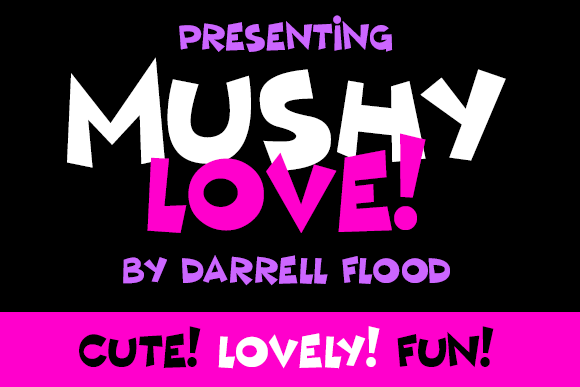
**Step into a Realm of Enchantment with Mushy Love Font – Where Imagination Takes Flight**
Prepare to be captivated by Mushy Love Font, an extraordinary display font that ignites the imagination and transports you to a world of whimsical adventures and captivating stories.
**A Delight for the Senses**
Mushy Love Font is a visual symphony, captivating with its fun and sharp strokes that mimic the vibrant lines of a comic book. Each letter dances with its lively personality, inviting you to unleash your creativity and embark on a journey where imagination knows no bounds.
**A Universe of Possibilities**
With Mushy Love Font as your creative companion, immerse yourself in a universe of possibilities. This remarkable font is not merely a collection of letters; it's a gateway to storytelling, a portal to worlds unexplored. Let your fingers dance across the keyboard, and watch as Mushy Love Font transforms your words into captivating tales that captivate and inspire.
**Ignite the Spark of Creativity**
Whether you're crafting animated adventures, designing children's books, or adding a touch of whimsy to your digital creations, Mushy Love Font is your trusted ally. This font is not just a tool; it's a spark that ignites the flame of creativity within you. Embrace the magic of Mushy Love Font and witness the birth of captivating stories and unforgettable designs.
**Experience the Joy of Expression**
With Mushy Love Font, self-expression takes center stage. Whether you're a seasoned designer or just starting your creative journey, this font empowers you to express your unique voice and style effortlessly. Let your personality shine through each letter, each word, and every design you create.
**A Legacy of Excellence**
Crafted by the visionary Darrell Flood, Mushy Love Font inherits a legacy of excellence and innovation. Darrell Flood's passion for typography and storytelling is evident in every curve and stroke of this remarkable font. Trust in the quality and artistry of Mushy Love Font, and elevate your creative endeavors to new heights.